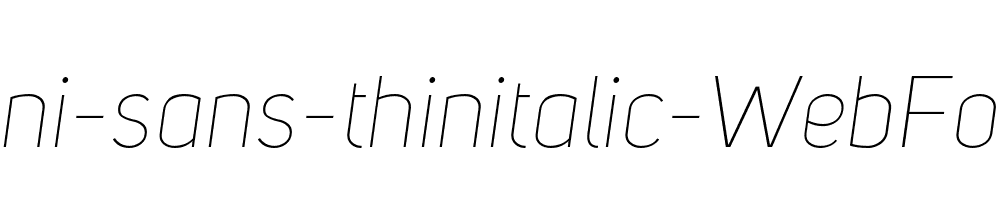
About uni-sans-thinitalic-WebFont
Uni Sans ThinItalic WebFont is a sleek and modern typeface with delicate strokes and a subtle slant that adds a touch of elegance to any design. The font features sharp apexes and smooth arcs, giving it a refined and polished look. The open counters and thin hairlines create a sense of lightness and sophistication, while the brackets and joints add a subtle geometric feel to the overall design. The descenders are long and graceful, contrasting beautifully with the rounded bowls and shoulders. The terminals are sharp and precise, giving the font a contemporary edge. Overall, Uni Sans ThinItalic WebFont strikes a perfect balance between classic sophistication and modern flair, making it ideal for a wide range of design projects.
This font can be classified as elegant and progressive, with a touch of warmth that adds a friendly and inviting feel to any text. Its neutral design makes it suitable for a variety of applications, from branding and advertising to editorial design and web content. Whether used in a bold headline or a subtle caption, Uni Sans ThinItalic WebFont is sure to make a bold statement while maintaining a sense of refinement and sophistication. With its clean lines and modern aesthetic, this font is a versatile choice for designers looking to add a touch of style to their projects.